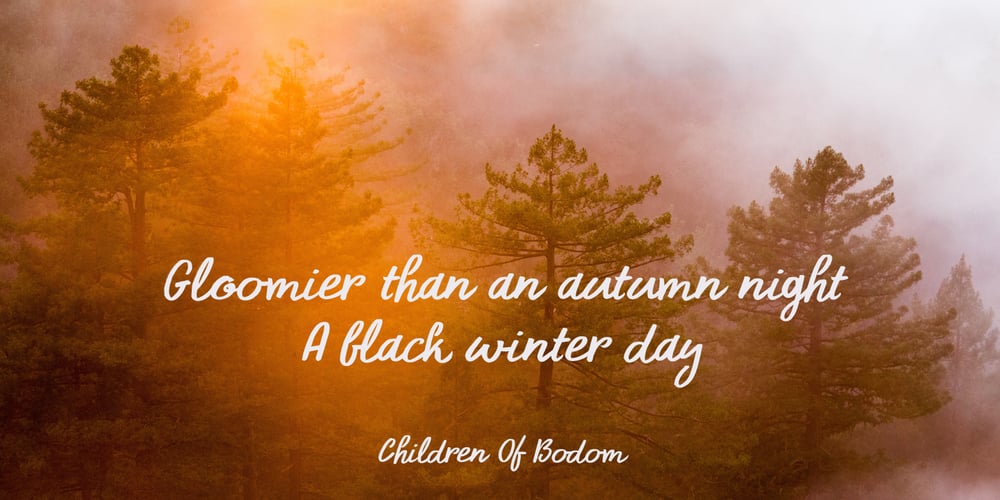
Primordial Font Family was designed by David Kerkhoff and published by Hanoded. Primordial contains 3 styles and family package options. Primordial is a chaotic handmade script font. It is rough around the edges, glyphs are shaky and don’t follow a baseline. Yet, in all this chaos, you will find the budding of a new idea, a glimpse of hope and a glint of something beautiful. Primordial comes in a regular and italic style, plus a back slanted style called Primordial Chaos.